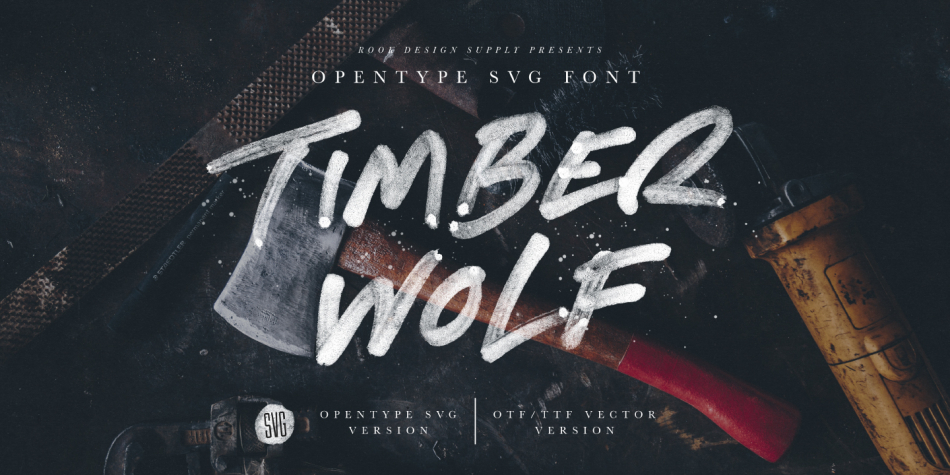
Designed by Greg Nicholls, Timber Wolf is a hand display font published by Rook Design Supply.
Timber Wolf is a one of a kind font that features an Opentype SVG version as well as a standard vectorized (OTF/TTF) version.
The Opentype SVG version uses actual images and transparency effects in order to get the quality that you see in the example images.